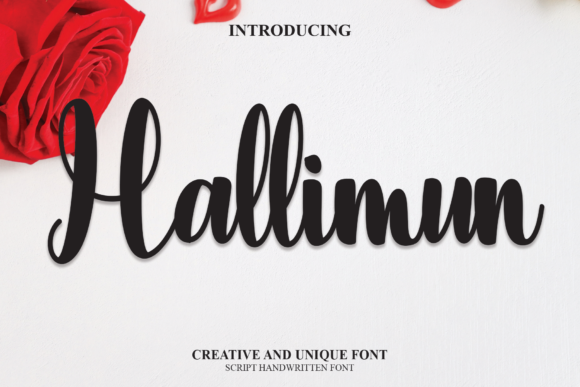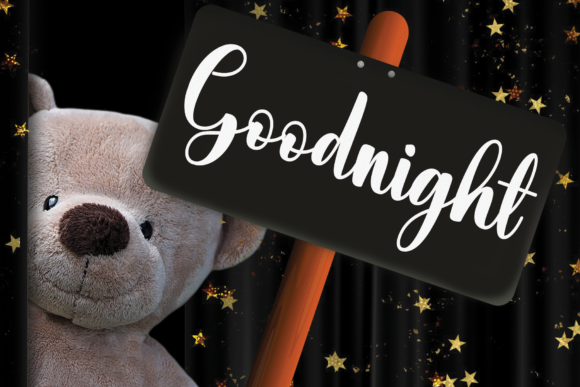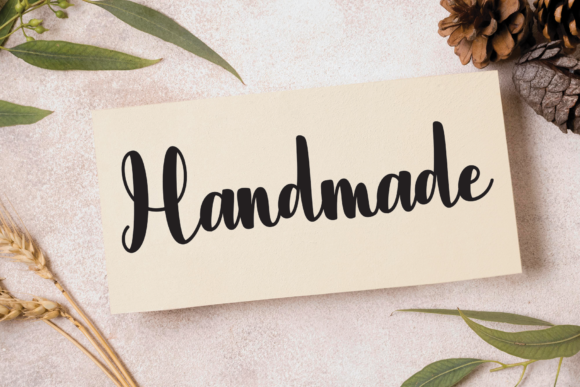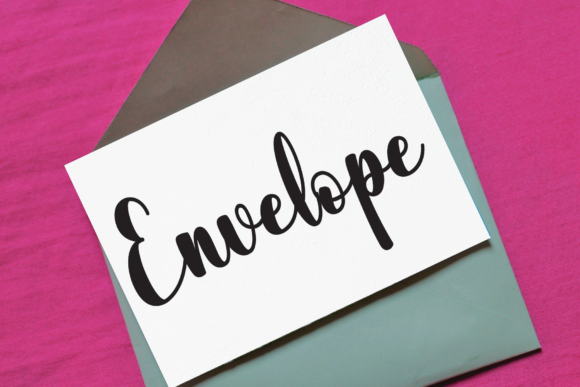
Hallimun Font
About Hallimun Font
The enchanting and flowing handwritten font you’re describing is a true design marvel, perfectly suited for a myriad of creative projects. Its beauty and graceful script make it an ideal choice for adding a touch of elegance and sophistication to a diverse range of applications. Here’s an extended version:
**Wall Hangings:** Transform your living spaces into art galleries with personalized and artistic wall hangings. The beautiful script of this font adds a unique and captivating aesthetic, turning any space into a haven of visual delight.
**Wedding Invitations:** Infuse your wedding invitations with a sense of romance and timeless beauty. The flowing script sets the perfect tone for a celebration of love, making each invitation a work of art.
**Social Media Post Logos:** Craft distinctive and memorable logos for your social media presence. The beauty and flow of this font lend authenticity and elegance, ensuring your brand stands out with a sophisticated flair.
**Advertising:** Elevate your advertising materials with typography that leaves a lasting impact. The impressive and flowing characters of this font bring a sense of refinement and charm to your promotional campaigns.
**Product Packaging and Design:** Add a touch of luxury and style to your products with packaging that captivates. Whether on labels or overall product design, this font enhances the visual appeal, making your products stand out on the shelves.
**Labels:** Create labels that not only convey information but also make a statement. The beautiful script adds an artistic touch, ensuring your products are noticed and remembered.
**Photography:** Enhance your photography with a watermark that complements your artistic vision. The flowing script becomes a signature element, turning each photograph into a captivating piece of visual storytelling.
**Invitations and Stationery:** Whether for formal events or everyday correspondence, this font elevates invitations and stationery to a new level of elegance. Each piece becomes a testament to timeless sophistication.
In essence, this beautiful and flowing handwritten font is a design powerhouse, capable of enhancing the visual appeal of wall hangings, wedding invitations, social media logos, advertising materials, product packaging, labels, photography, watermarks, invitations, stationery, and any project that demands impressive typography. Its versatility and timeless elegance make it an invaluable asset for creative projects across various mediums.